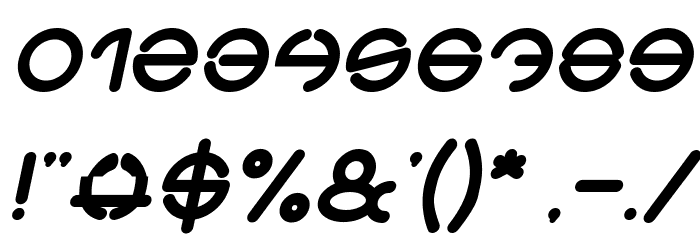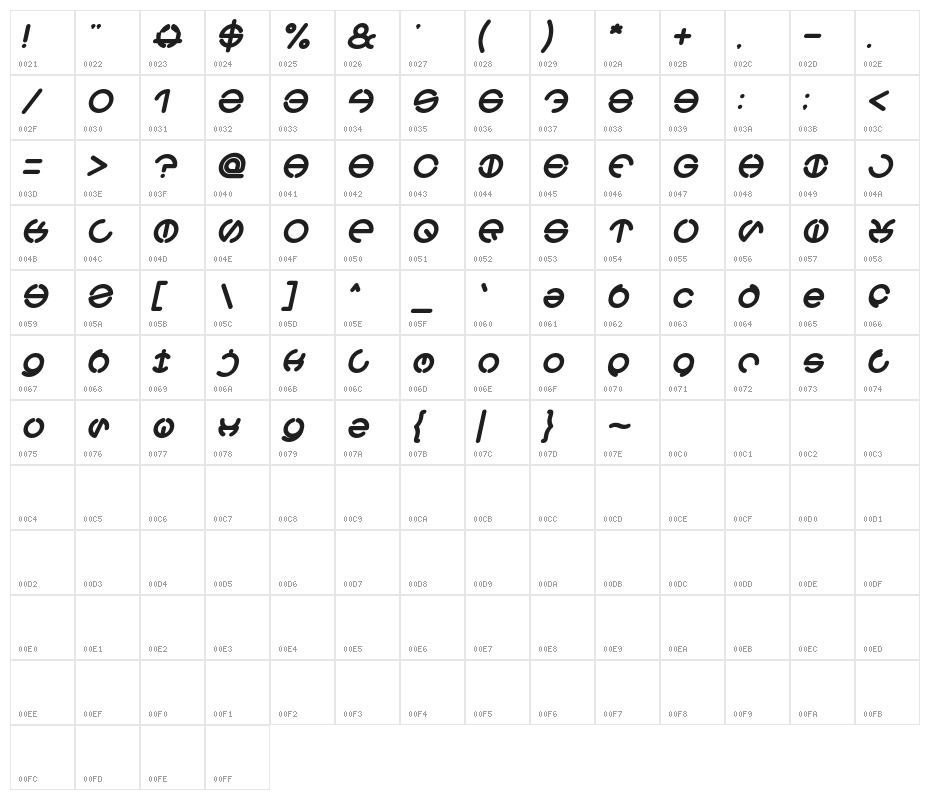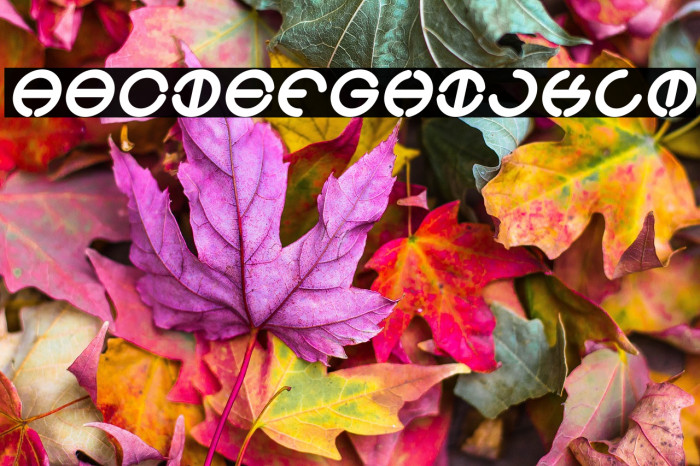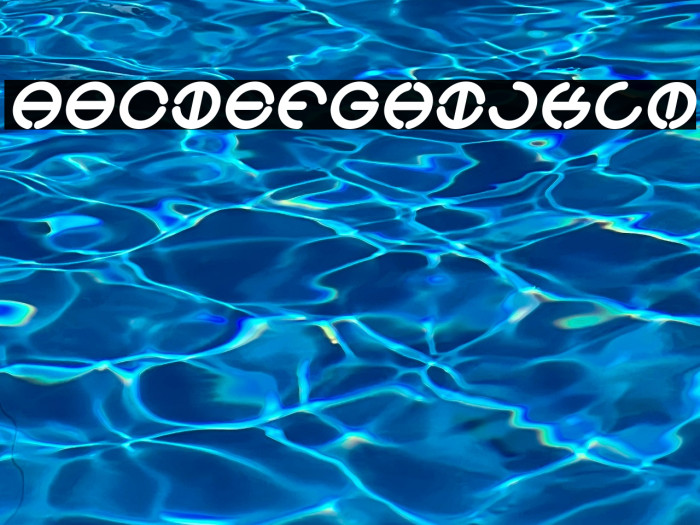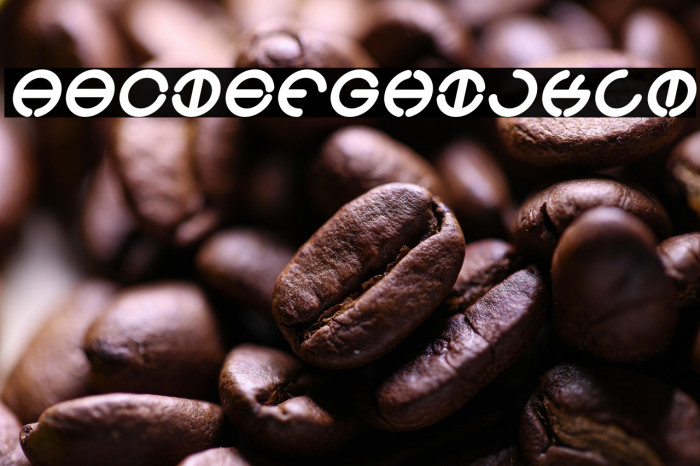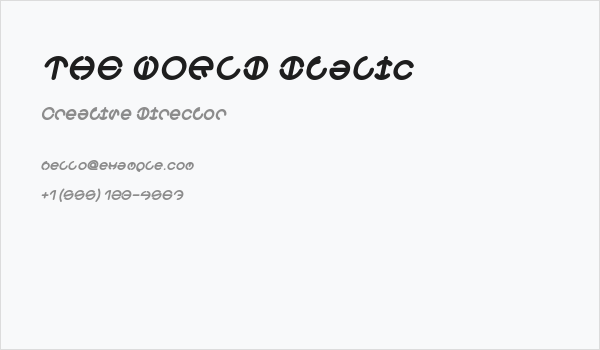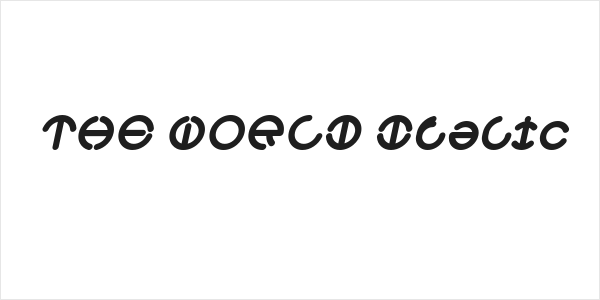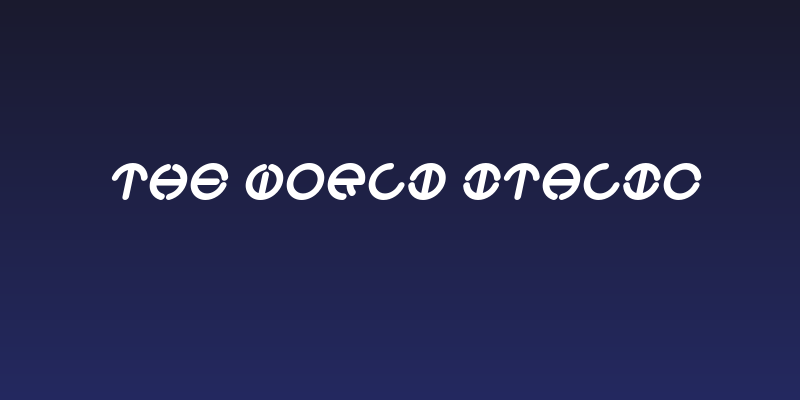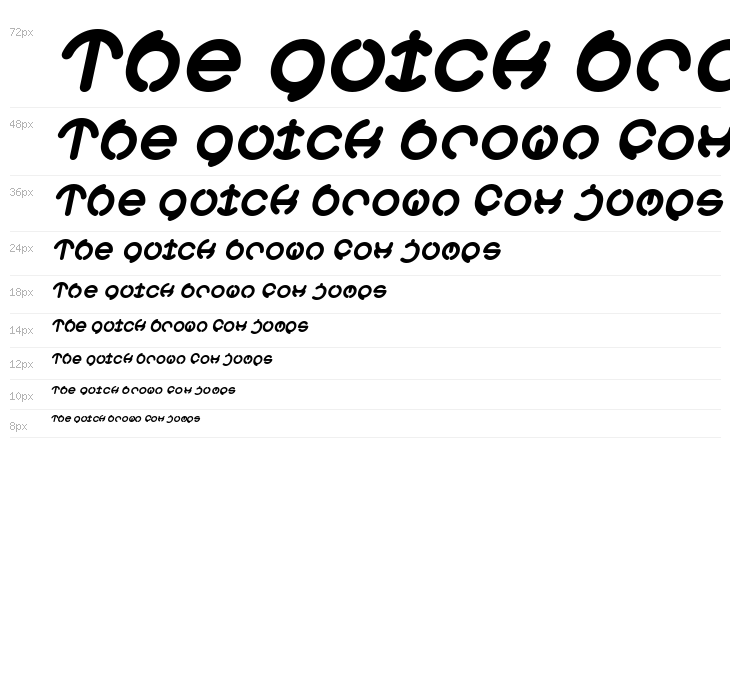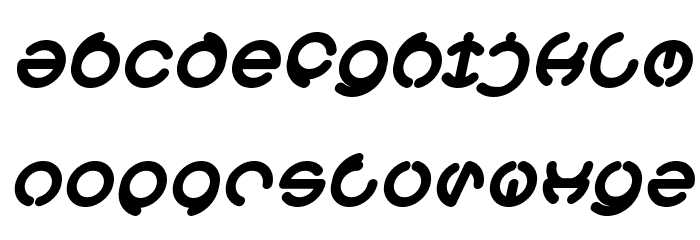
THE WORLD Italic Font
THE WORLD Italic Description
This font features a unique, circular design with a modern twist. Each character is crafted with a consistent thickness, creating a bold and cohesive look. The letters are slightly italicized, adding a dynamic and forward-moving feel. The rounded shapes and closed counters give it a futuristic and playful appearance. The numbers and special characters maintain the same stylistic approach, ensuring uniformity across all elements. This font is ideal for projects that require a distinctive and eye-catching typeface.
| Proposed Projects | Ideal for branding, logos, posters, and any design needing a modern and unique typeface. |